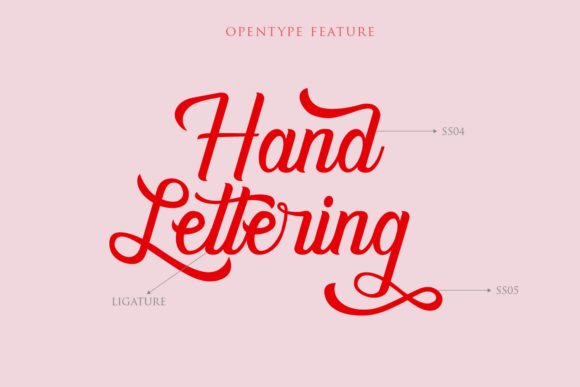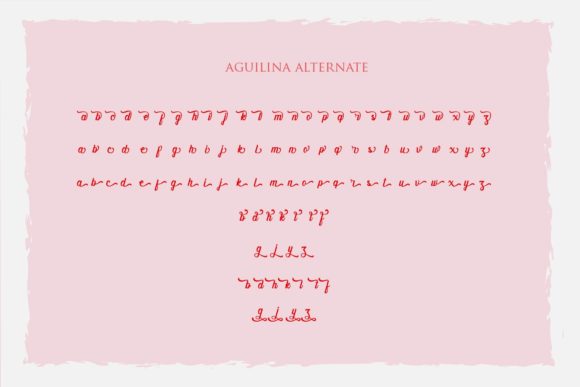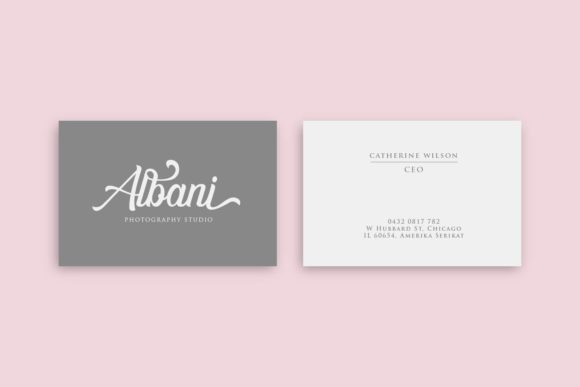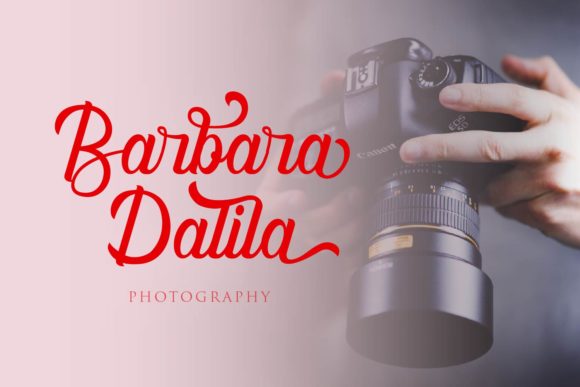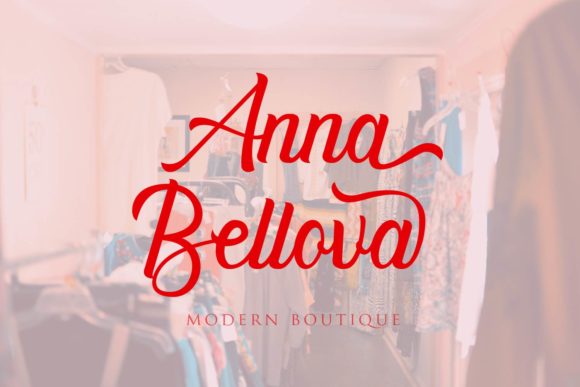
Aguilina Font
About Aguilina Font
Aguilina is a charming and flowing handwritten font. It looks stunning on wedding invitations, thank you cards, quotes, greeting cards, logos, business cards and every other design which needs a handwritten touch.